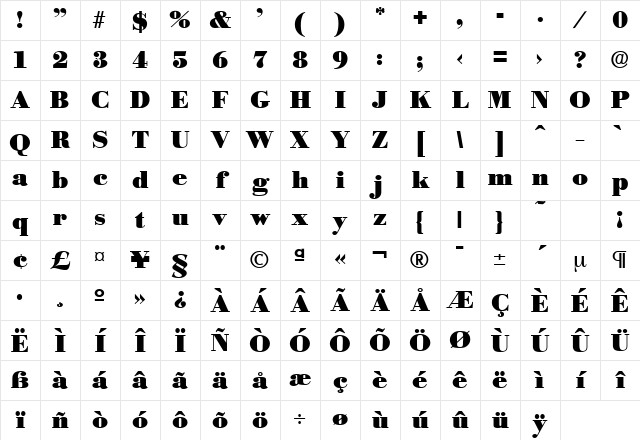
Bodoni-Serial-Black Regular
Design Context for Bodoni-Serial-Black
Bodoni-Serial-Black is a composed and adaptable typeface that performs quietly and consistently across a wide range of design contexts.
Pro Tip: Use Bodoni-Serial-Black in both headline and body roles to test its range before committing to a single application.